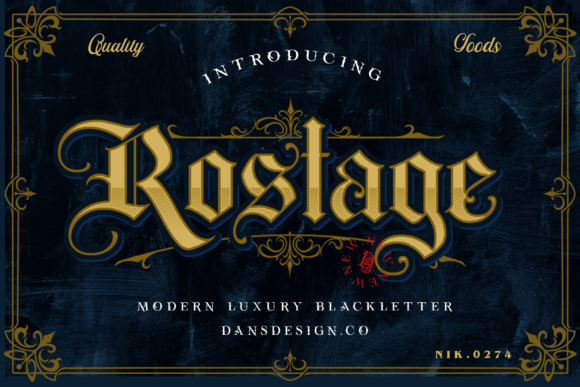
Introducing Rostage Font, the ultimate choice for vintage logo designs! Crafted by the talented Dansdesign, this bold and uniquely designed blackletter font is here to add a touch of elegance and nostalgia to your creative projects.
With Rostage Font, you can effortlessly elevate your labels, advertising materials, commercials, and posters to new heights. Its distinct vibe will captivate your audience and transport them to a bygone era where beauty and charm reigned supreme.
Imagine the impact of a vintage-inspired logo that effortlessly captures the essence of your brand. Rostage Font's intricate details and classic appeal will make your logo stand out from the crowd, leaving a lasting impression on your customers.
But Rostage Font is not just about aesthetics; it's also about versatility. Its timeless design ensures that it can be used across various industries and niches, from fashion and lifestyle brands to artisanal products and beyond. Let your creativity flow as you explore the endless possibilities this font has to offer.
This font is more than just a collection of letters; it's an emotional journey. It evokes feelings of nostalgia, heritage, and craftsmanship, reminding us of a simpler time when attention to detail was paramount. By incorporating Rostage Font into your designs, you're not just adding a font – you're adding a story.
Unlock the power of Rostage Font and let it transport your audience to an era of elegance and sophistication. Its captivating presence will make your designs impossible to ignore, attracting attention and leaving a lasting impression on anyone who lays eyes on them.